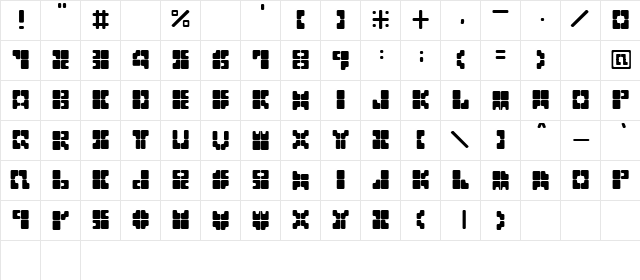
clo Regular
Design Context for clo� Typeface
clo� is a composed and adaptable typeface that performs quietly and consistently across a wide range of design contexts.